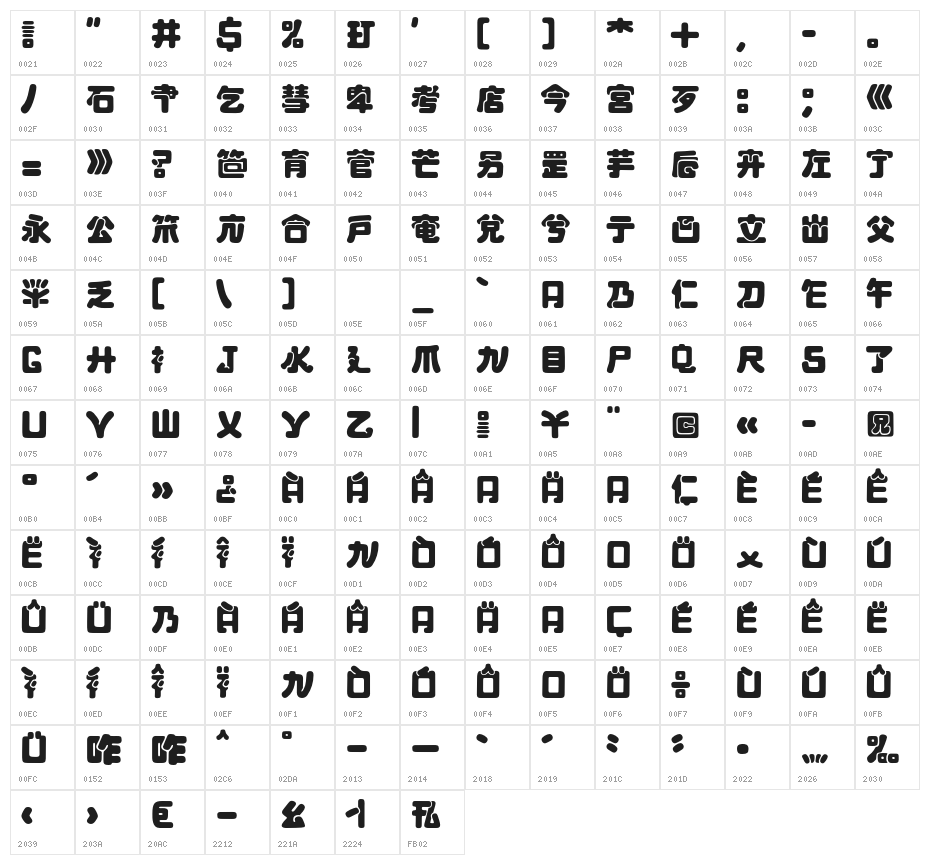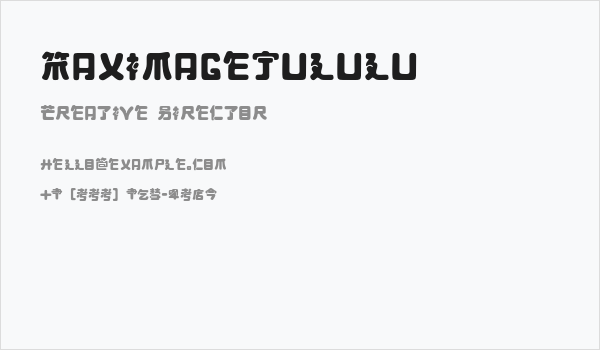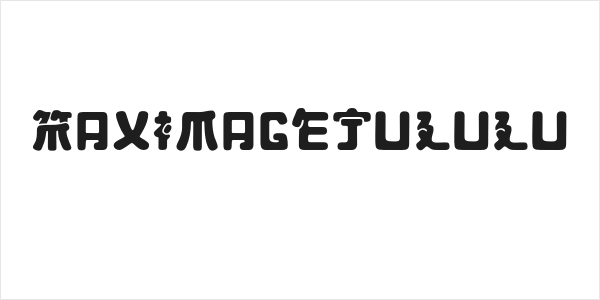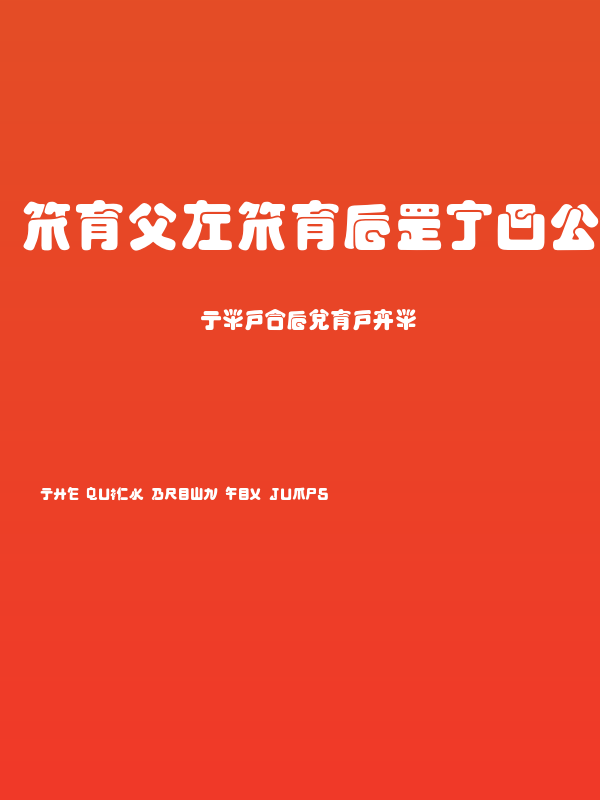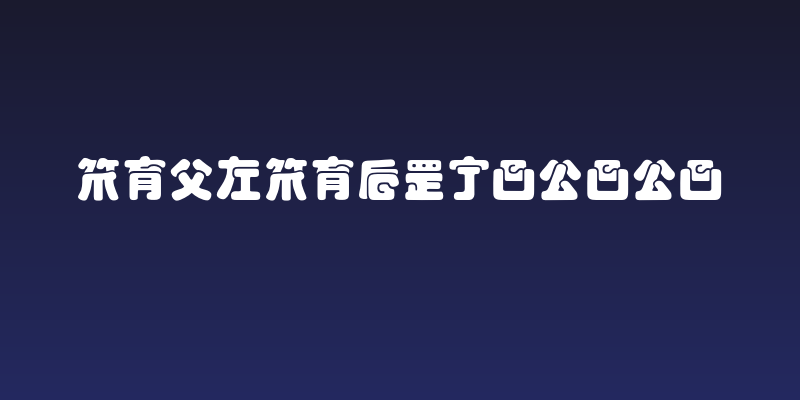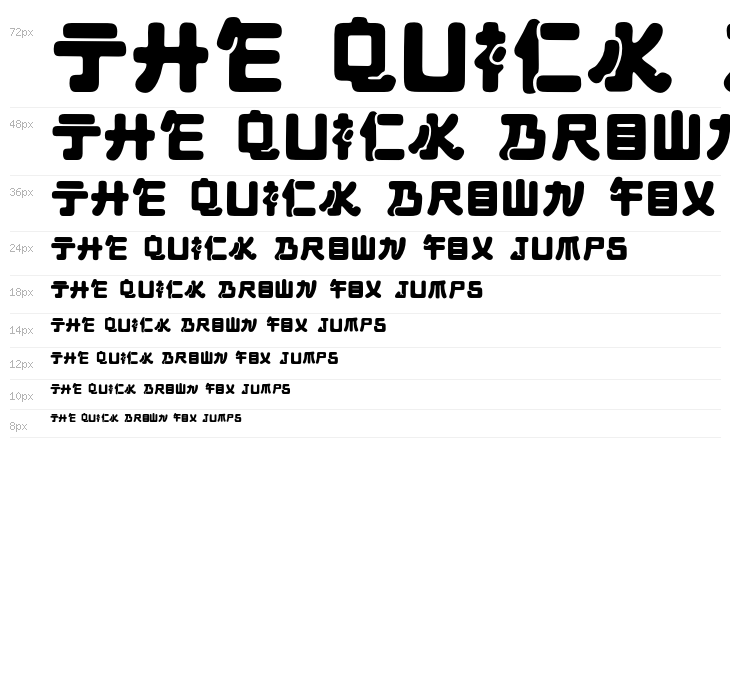
MaximageJululu Font
MaximageJululu Description
This font features a bold and playful design with rounded edges and a thick, uniform stroke. The characters are highly stylized, giving them a unique and modern appearance. The letters are slightly condensed, which adds to the compact and cohesive look of the text. The font includes both uppercase and lowercase letters, numerals, and a selection of special characters, making it versatile for various design needs. Its distinct style is suitable for creating eye-catching headlines or logos that require a strong visual impact.
| Proposed Projects | Ideal for branding, poster design, children's books, and playful advertising campaigns. |